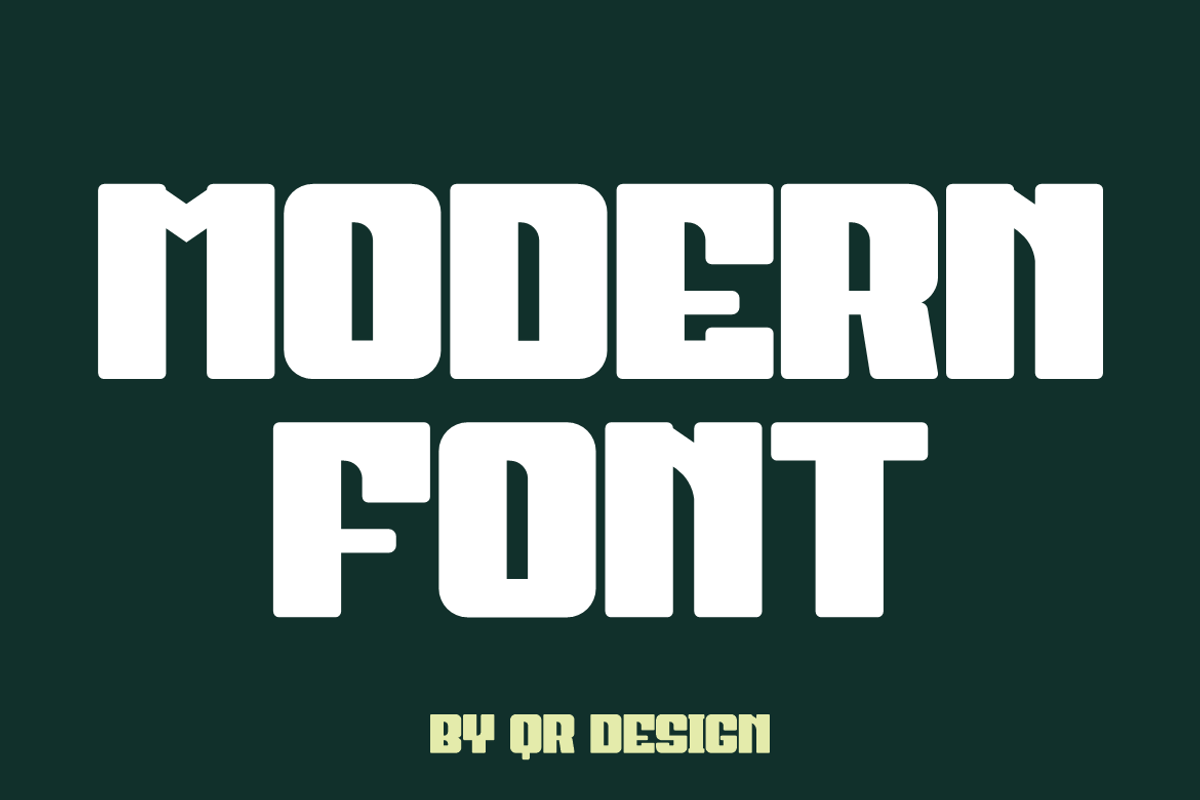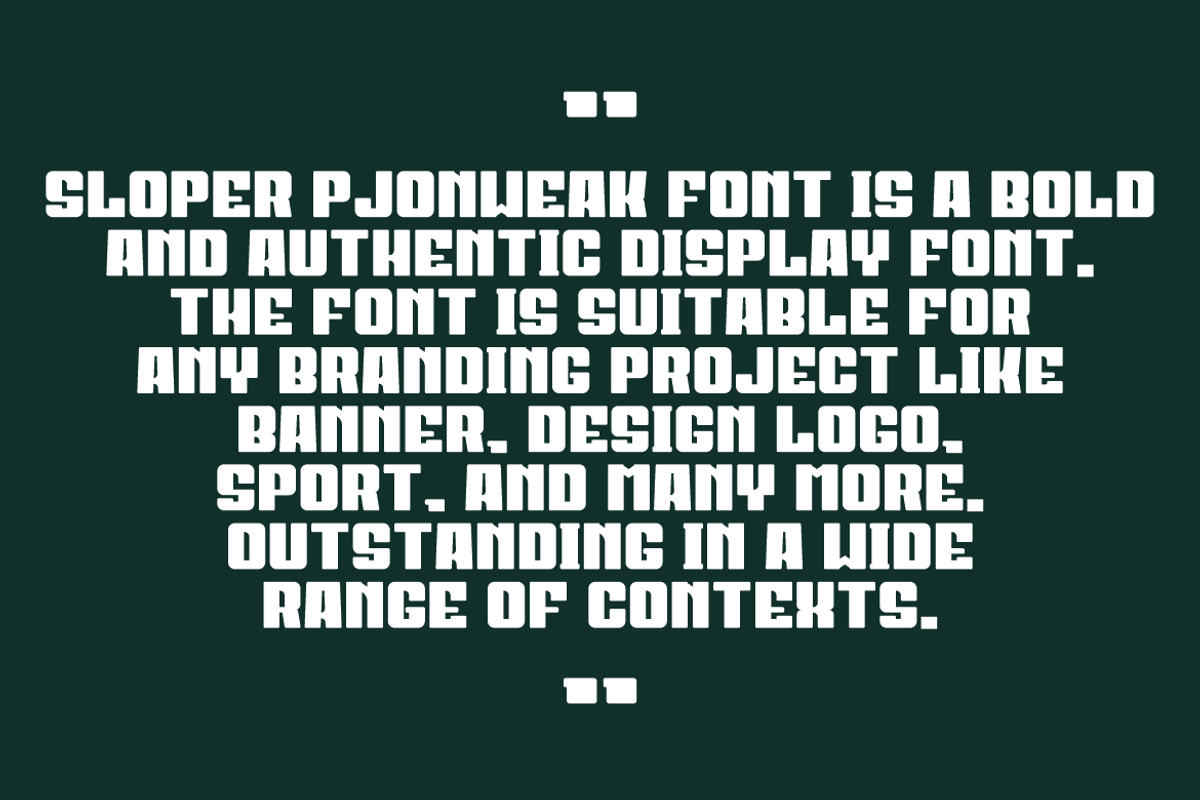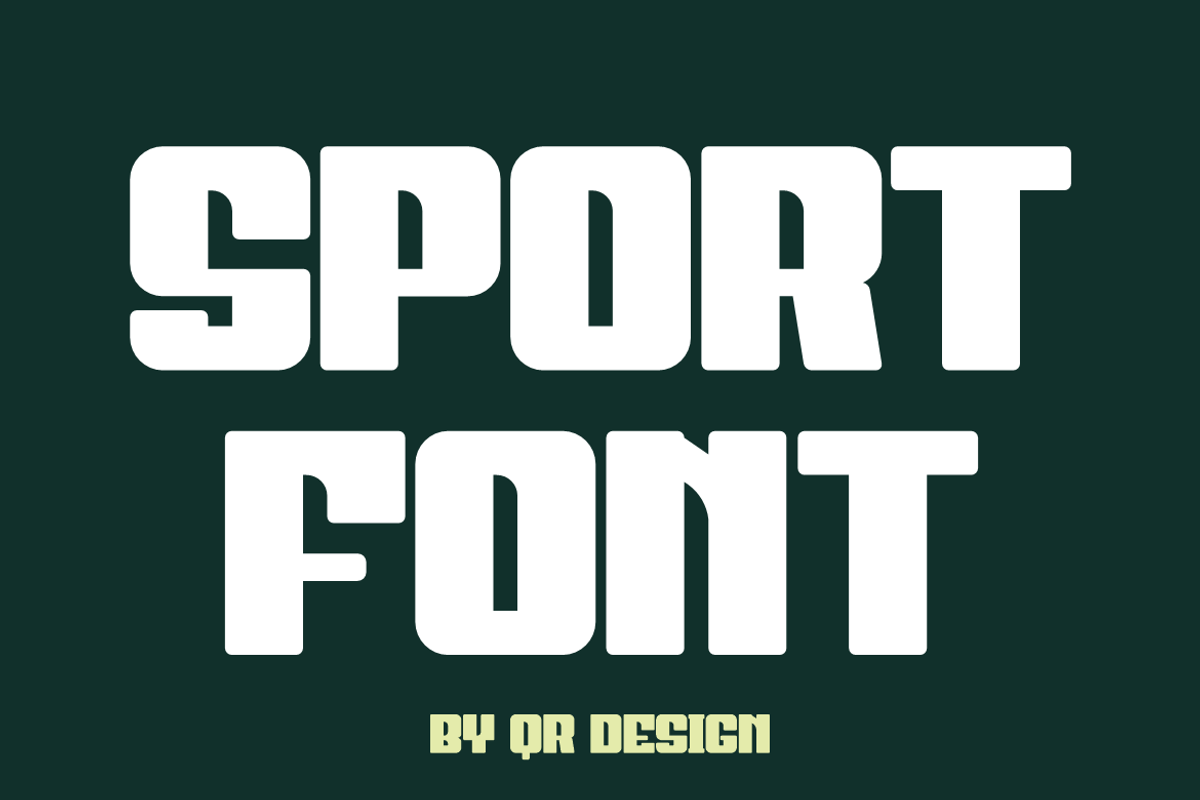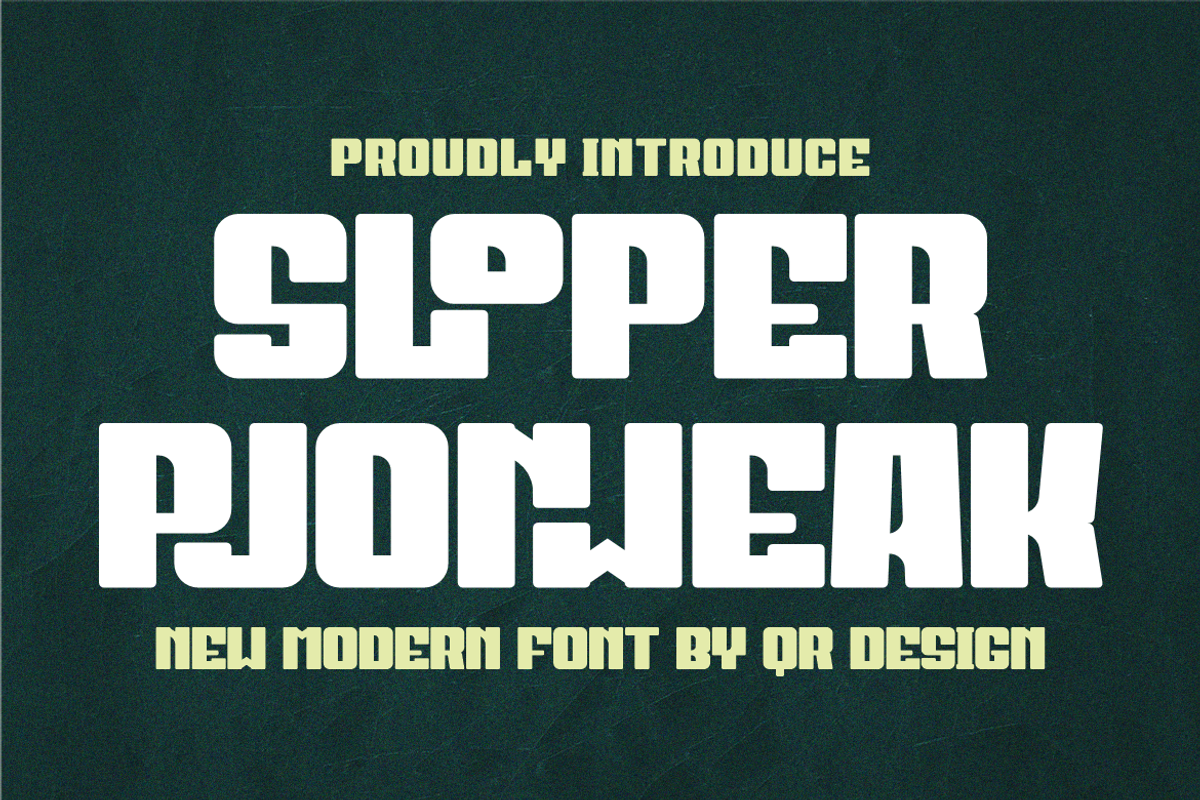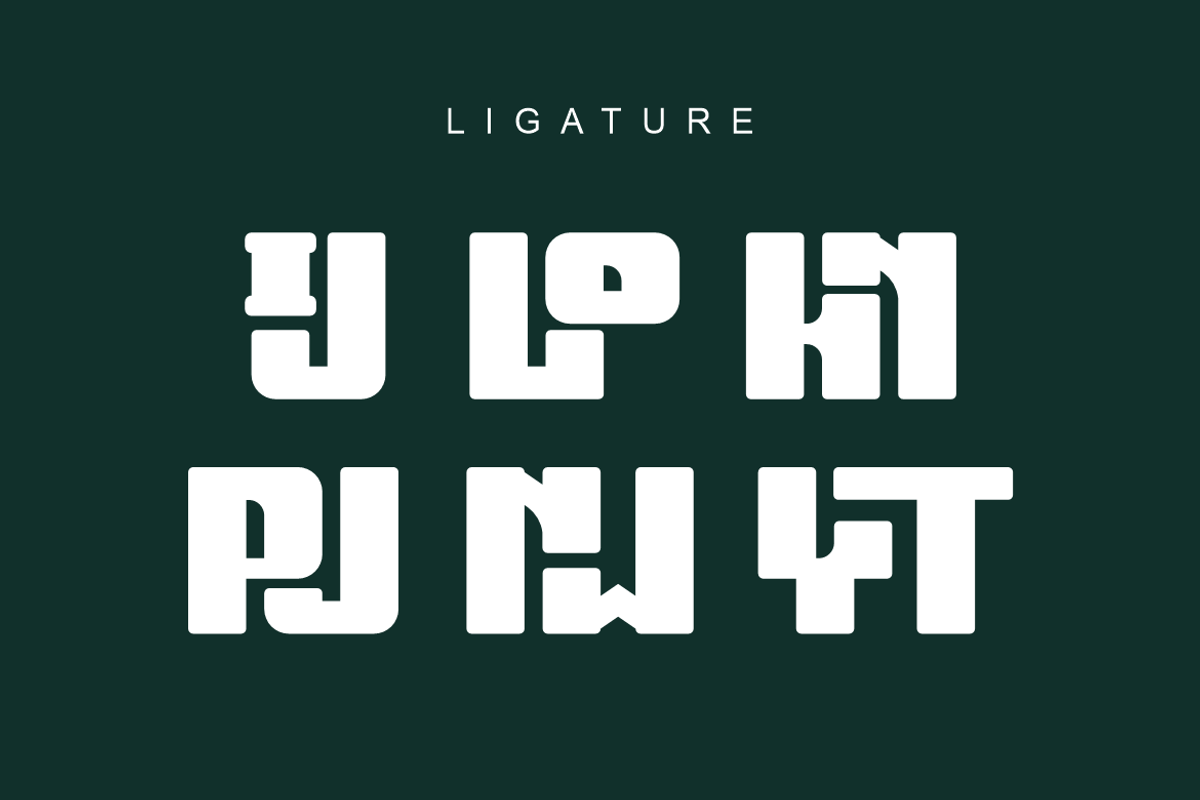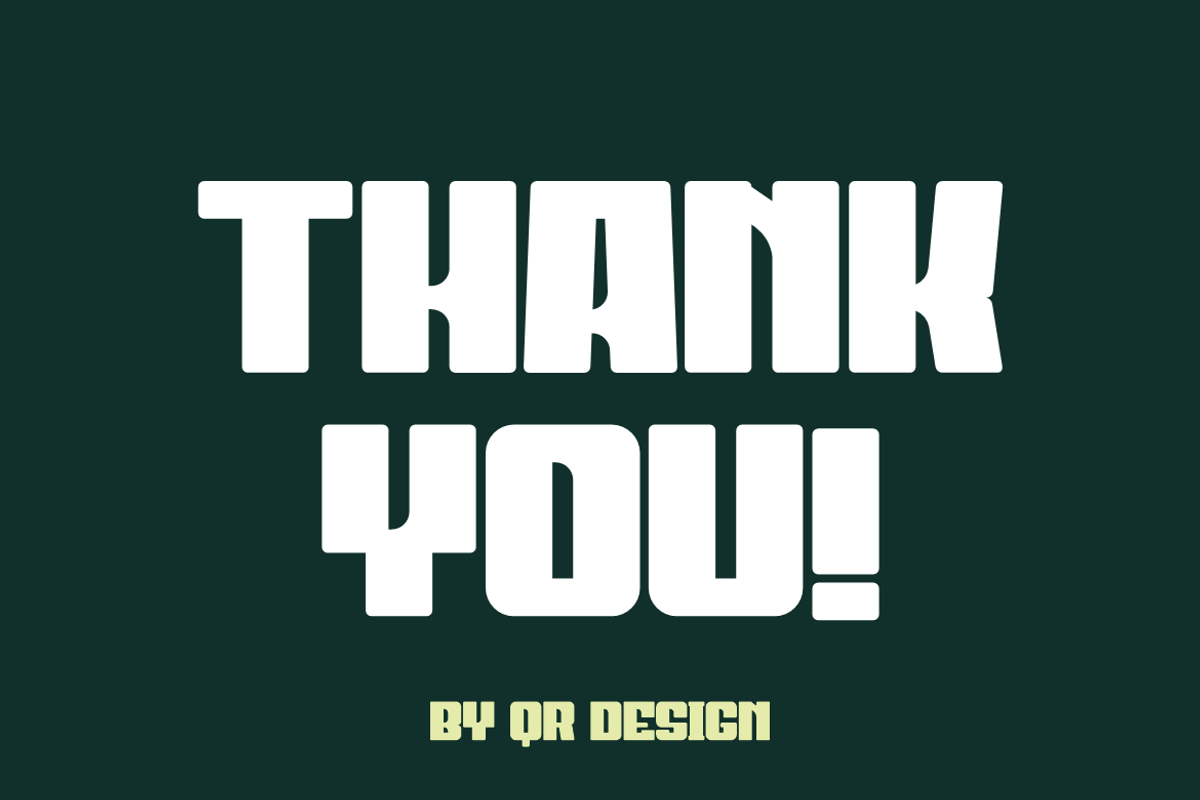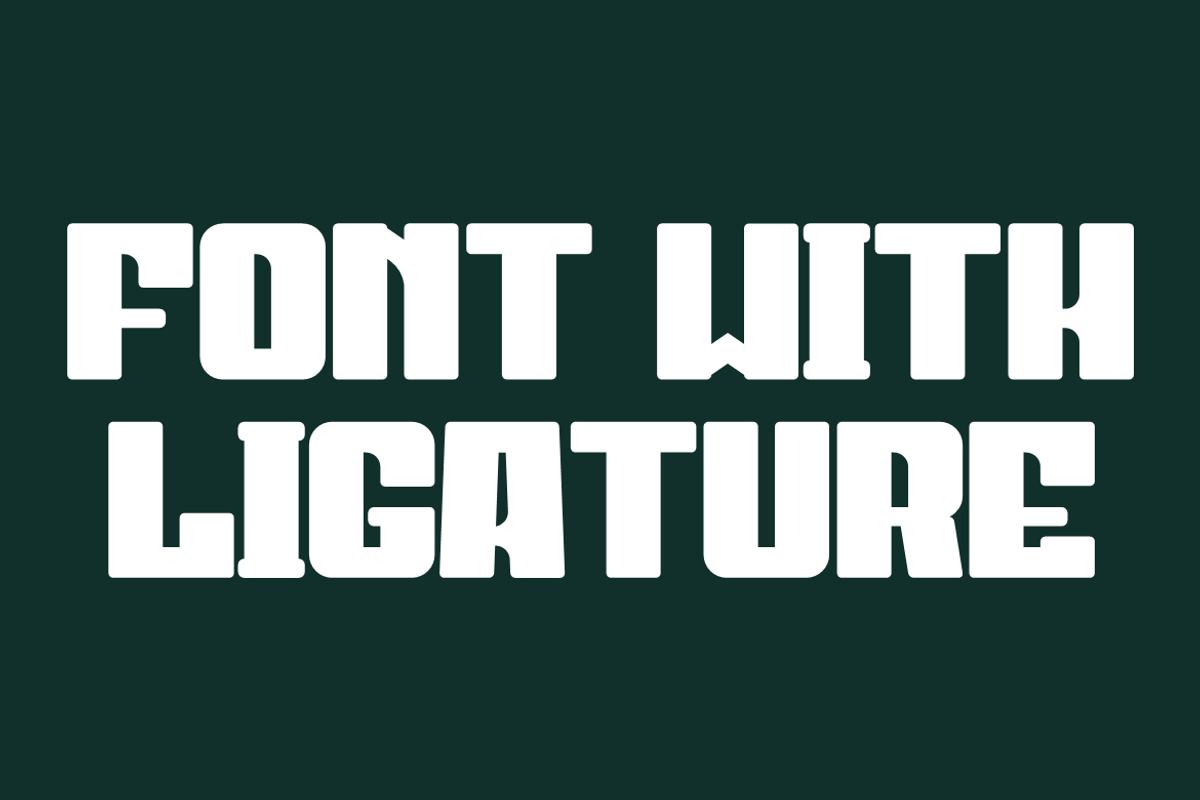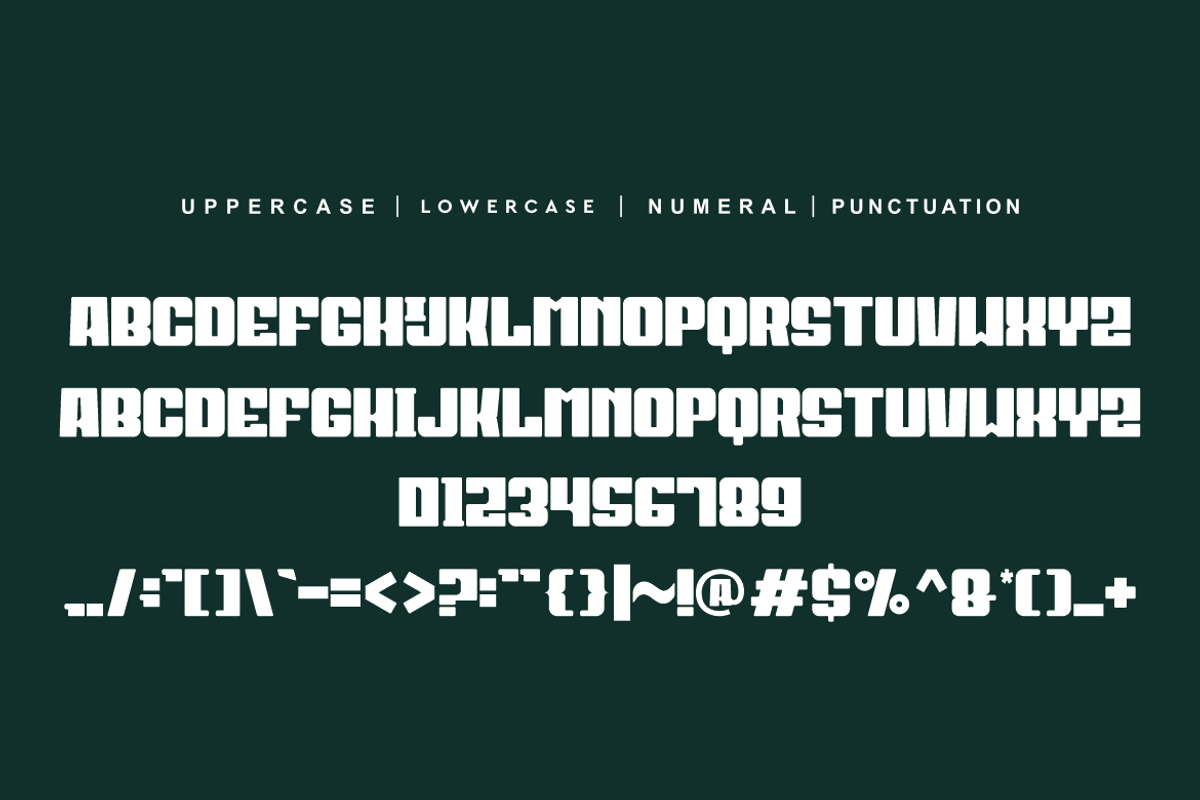
Sloper Pjonweak
Sloper Pjonweak Font is a bold and authentic display font. The font is suitable for any branding project like logo, sport, and many more. Outstanding in a wide range of contexts.